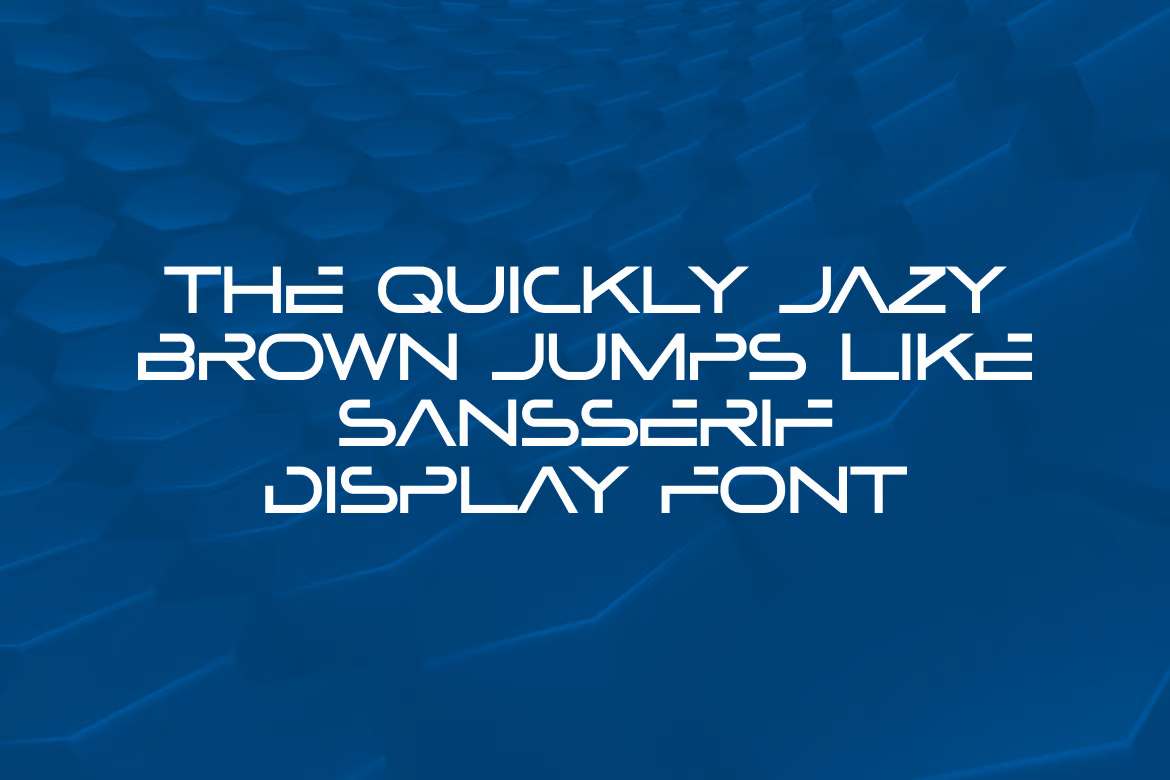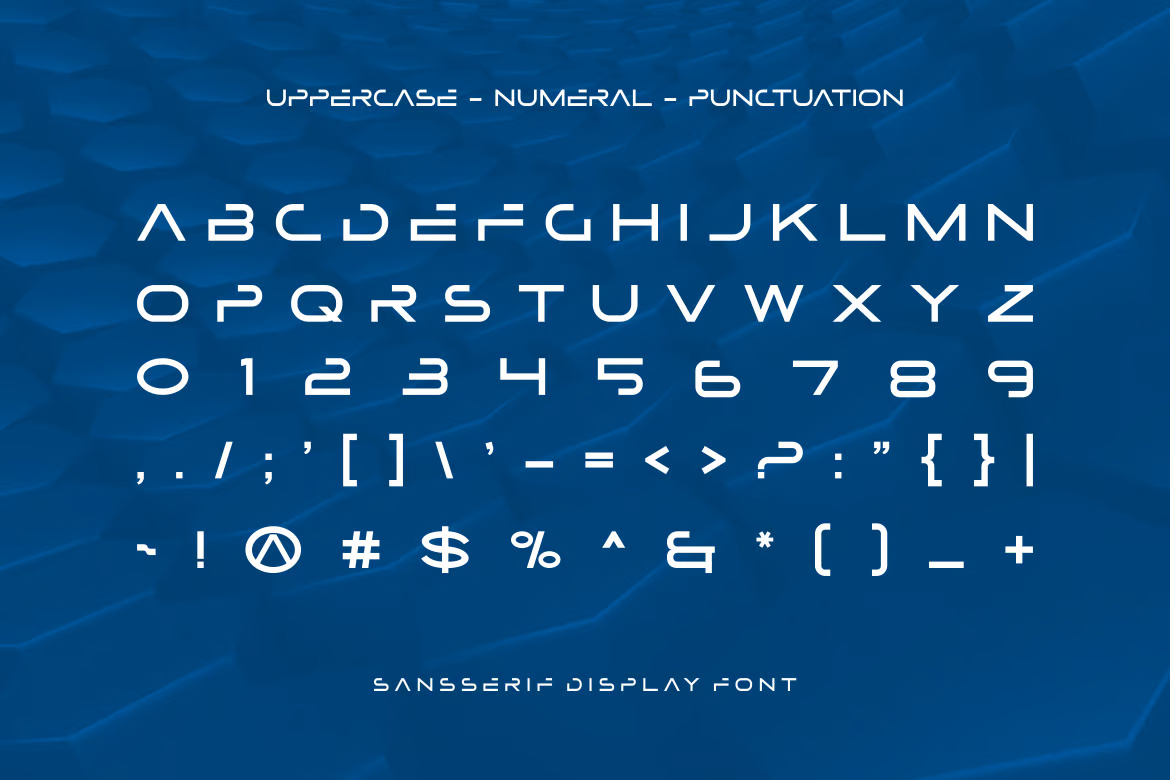
Bendhis Display Font
Bendhis Font – Modern and Bold
Bendhis is a striking and authentic display font, perfect for various branding projects such as logos, t-shirt printing, esports, and more. It stands out beautifully in a wide range of applications.
Bendhis – Sans Serif Display Font
Bendhis - Sans Serif Display Font